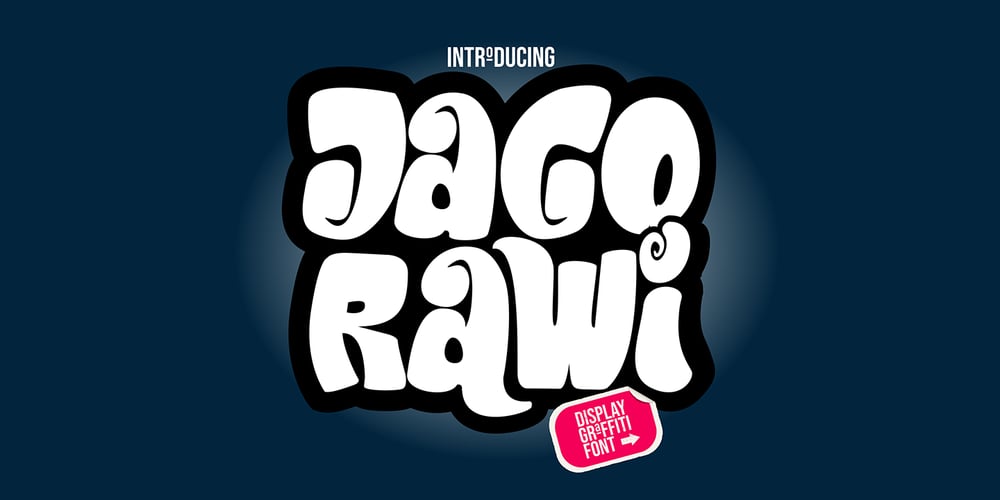
Jago Rawi Graffiti Font Family was designed by Sipanji and published by Sipanji21. Jago Rawi Graffiti contains 1 styles and family package options. Jago Rawi is a unique display font with a graffiti style. This font adds an urban and edgy vibe to your designs, making it perfect for streetwear, posters, album covers, and any project that requires a bold and distinctive look. Its creative and dynamic characters bring a touch of street art to your work, ensuring your designs stand out.